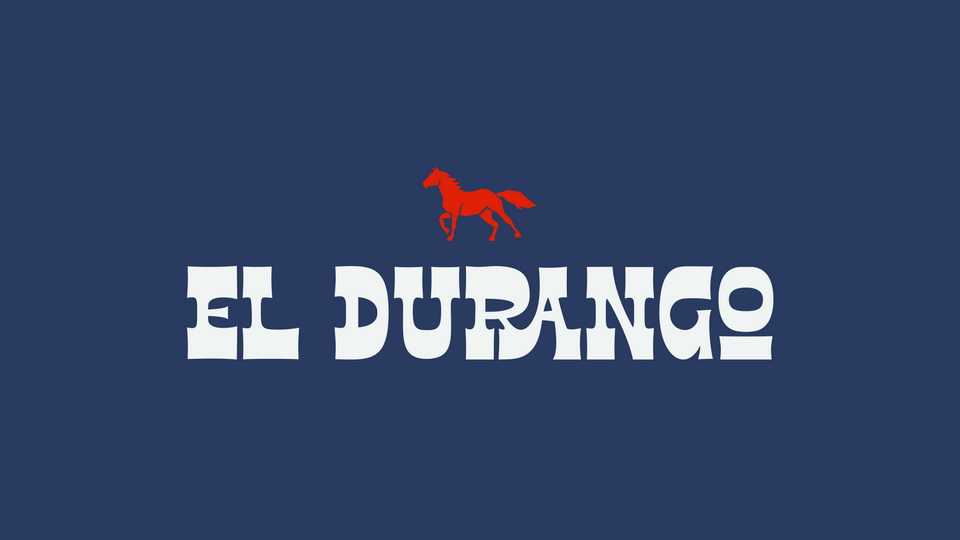
Download El Durango font, a bold western style typeface. The freedom spirit of El Durango is perfect for your western theme poster, flyer, games, and t-shirt project as well.